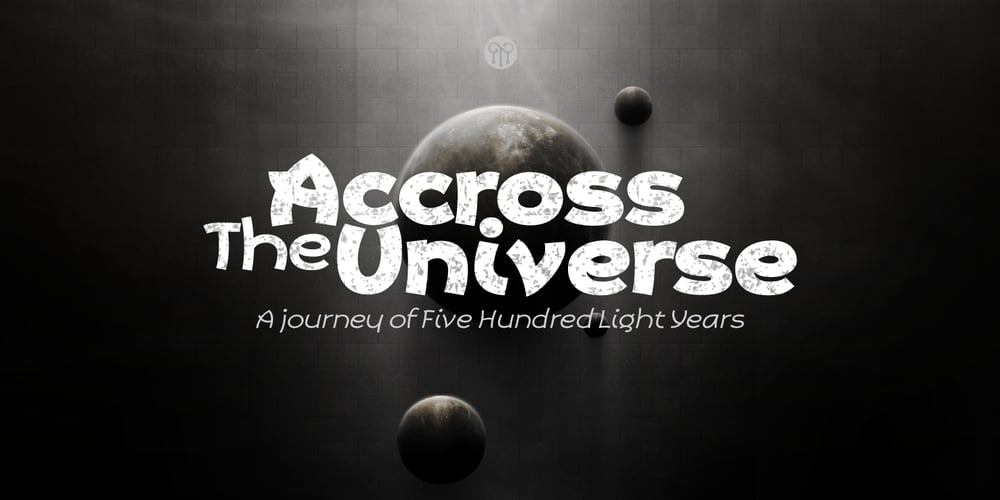
Primate
Primate Font Family was designed by John Moore and published by John Moore Type Foundry. Primate contains 12 styles and family package options. Primate is a typeface family that works both as a display font for reading, casual and informal as it approaches the forms of nature, hence the name Primate. Primate’s family comes in a full range of weights, from the thin Ultra Light to Heavy Black, all weights are also presented in italics and all have ornaments. Primate is a natural and fun to compose texts, giving the design work of a contemporary look.